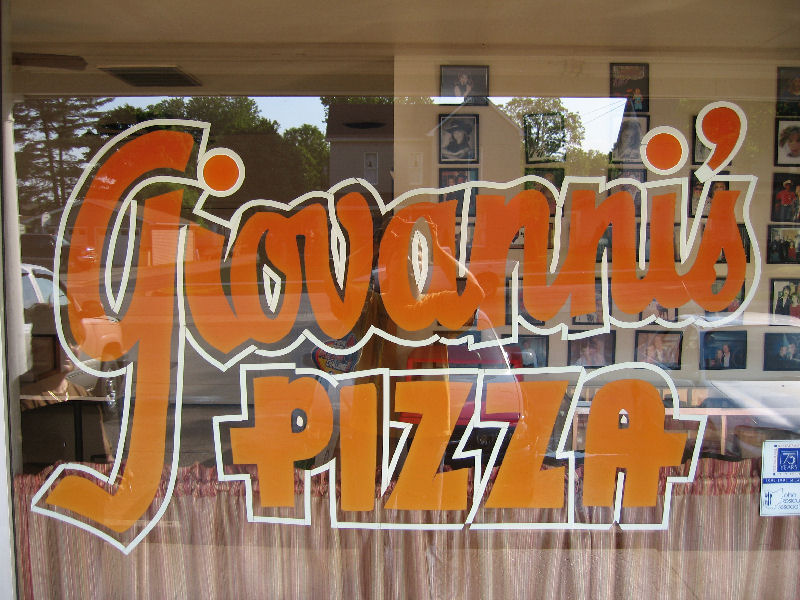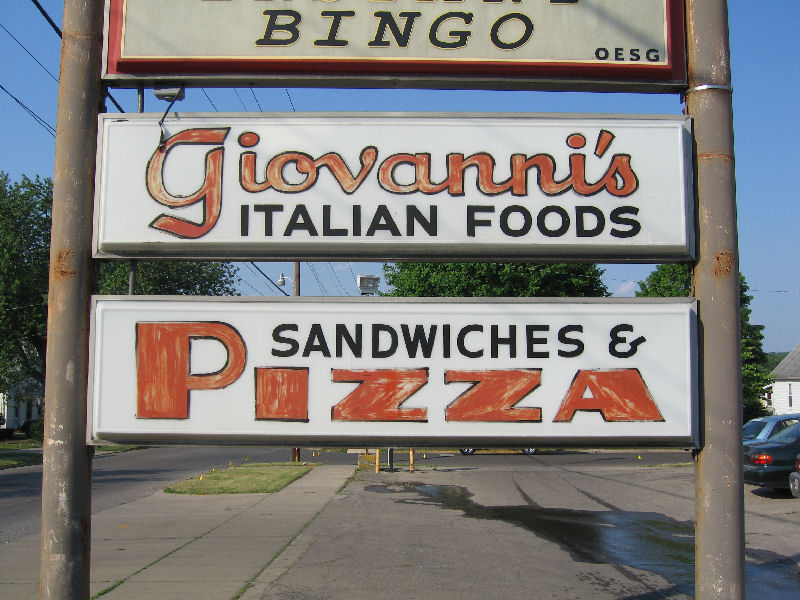
Font Identification Assistance
I'm trying to ID these fonts. They don't look familiar, and the lettering on the pan is painted on so I thought perhaps, other than the obvious Arial font used for the black letters, that mabey it was a custom lettering? The window lettering is cut vinyl and is a different font than the pan face.
Dont know if you have tried this but go to whatthefont.com you will need a small sample of the font and run it through the font identifier.
That's old-style hand-lettrin'.
You might find something similar in one of the "Alphabets" books sold by SignCraft, but I have 'em both and don't recognize it.
Looks like a job for The Vector Doctor!
Script Bold would be a starting point to re-create the graphics. There are a lot of similar details such as the "s". It is hand painted from a sign painters' repertoire.
the stroke around the first sign looks like it's just many pieces of pinstriping tape hahaha. definitely looks like a hand painted.
Yes Odecom, it is just striping cut into pieces, but the letters are cut vinyl. Perhaps they hand cut the letters out of some vinyl, mabey using a template or perhaps even freehand?